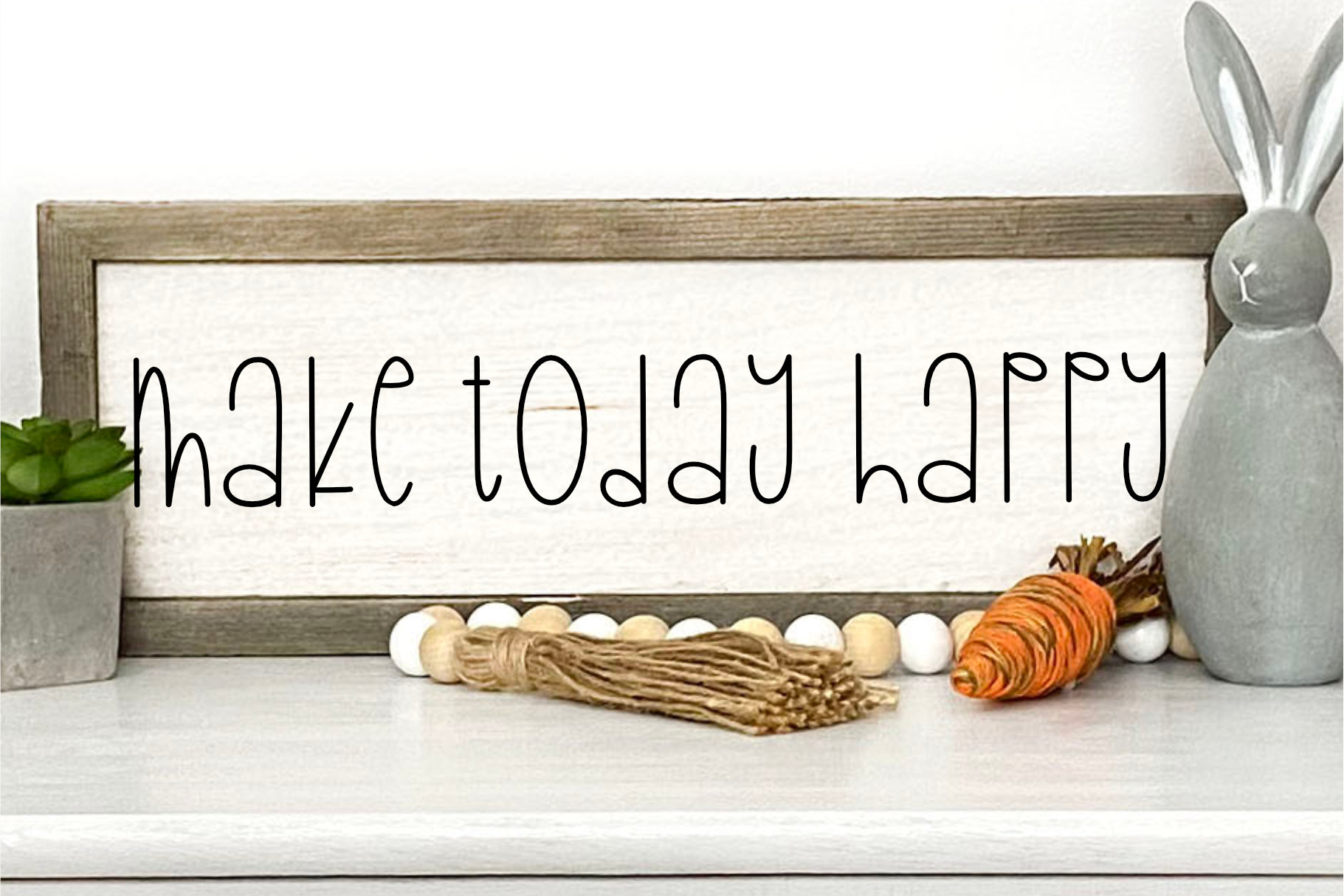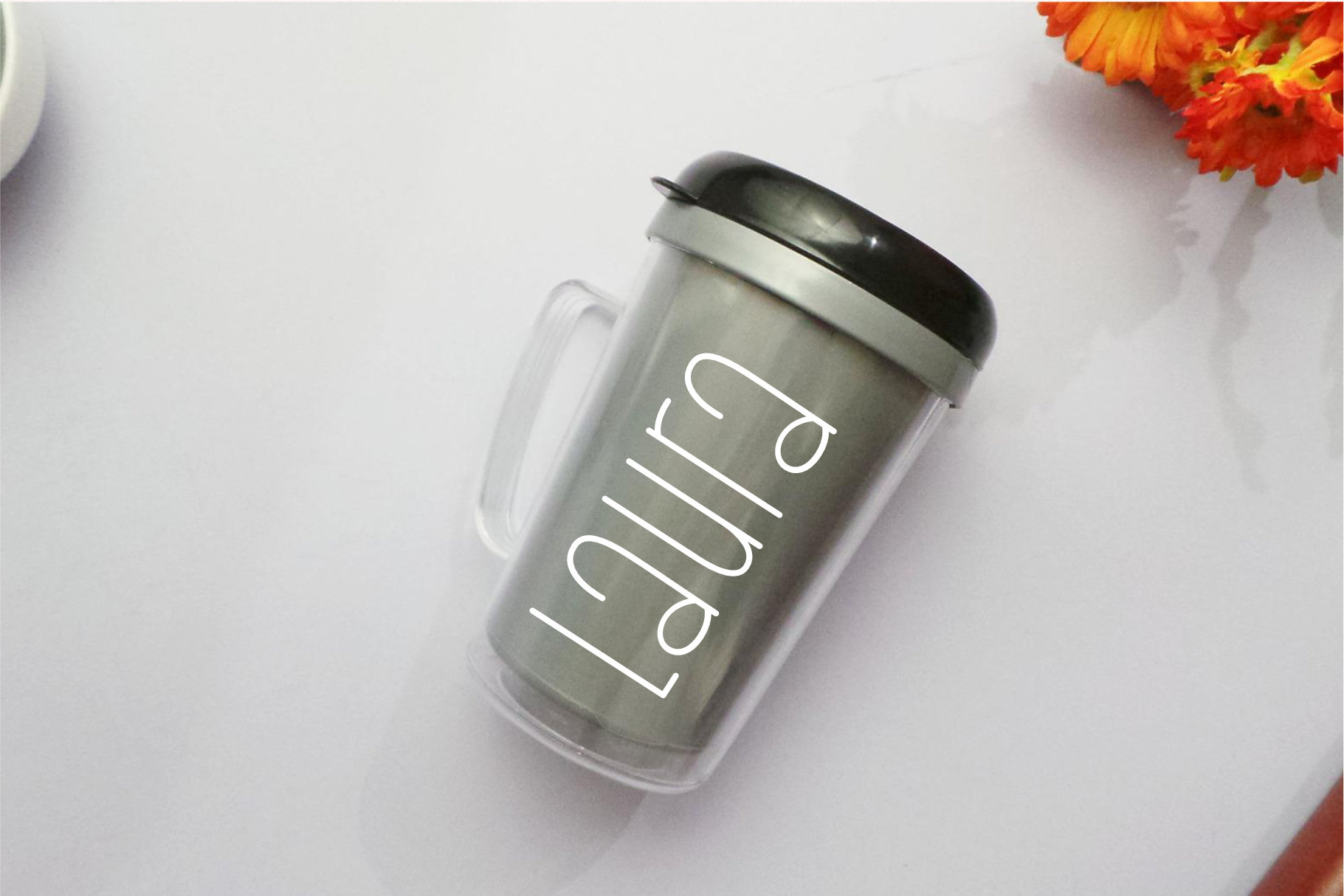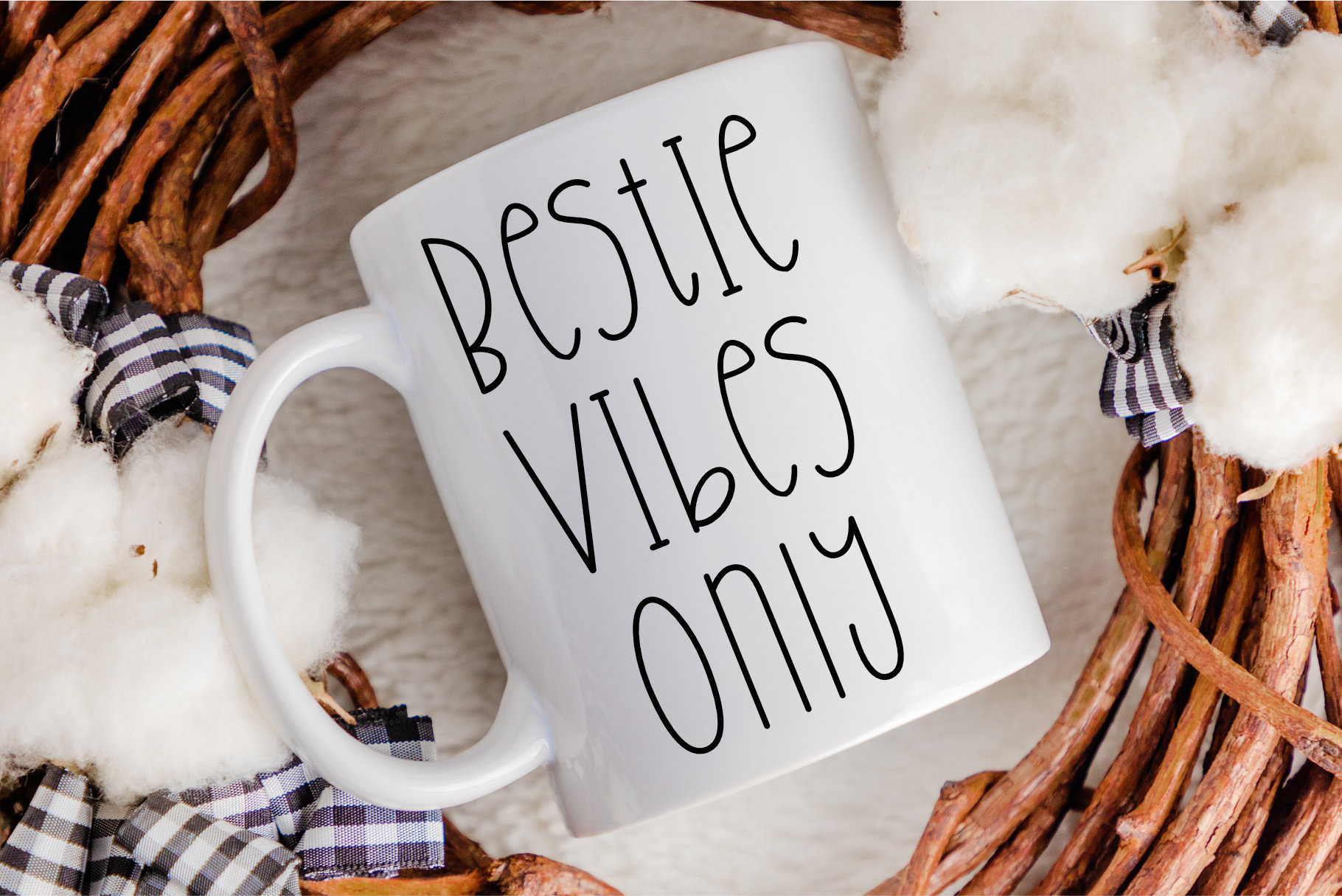
Raemoon Display Font
It’s a tall and skinny font perfect for signs! Simple and versatile, this font is perfect for chic farmhouse decor look, home decor, cards, and farmhouse living.